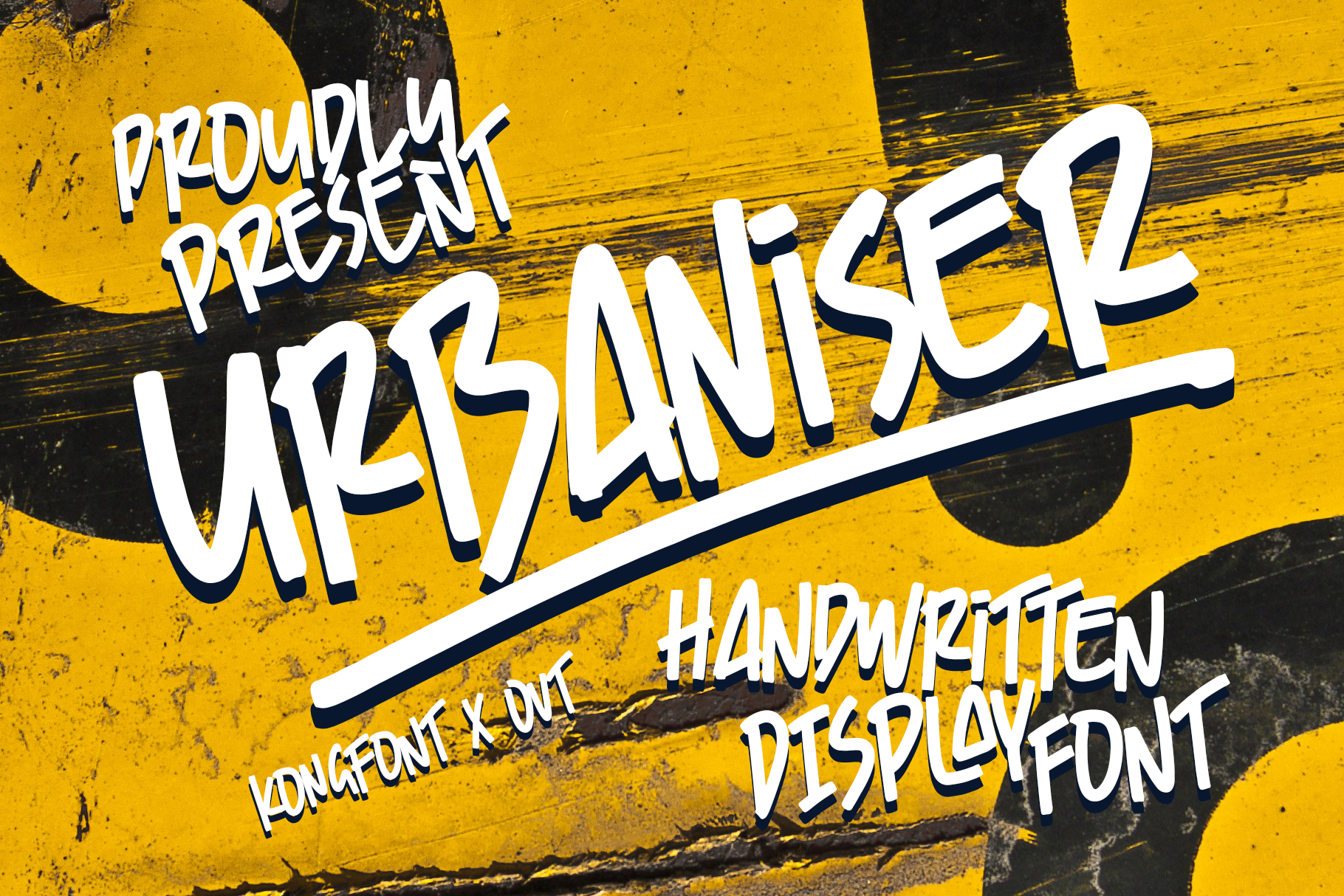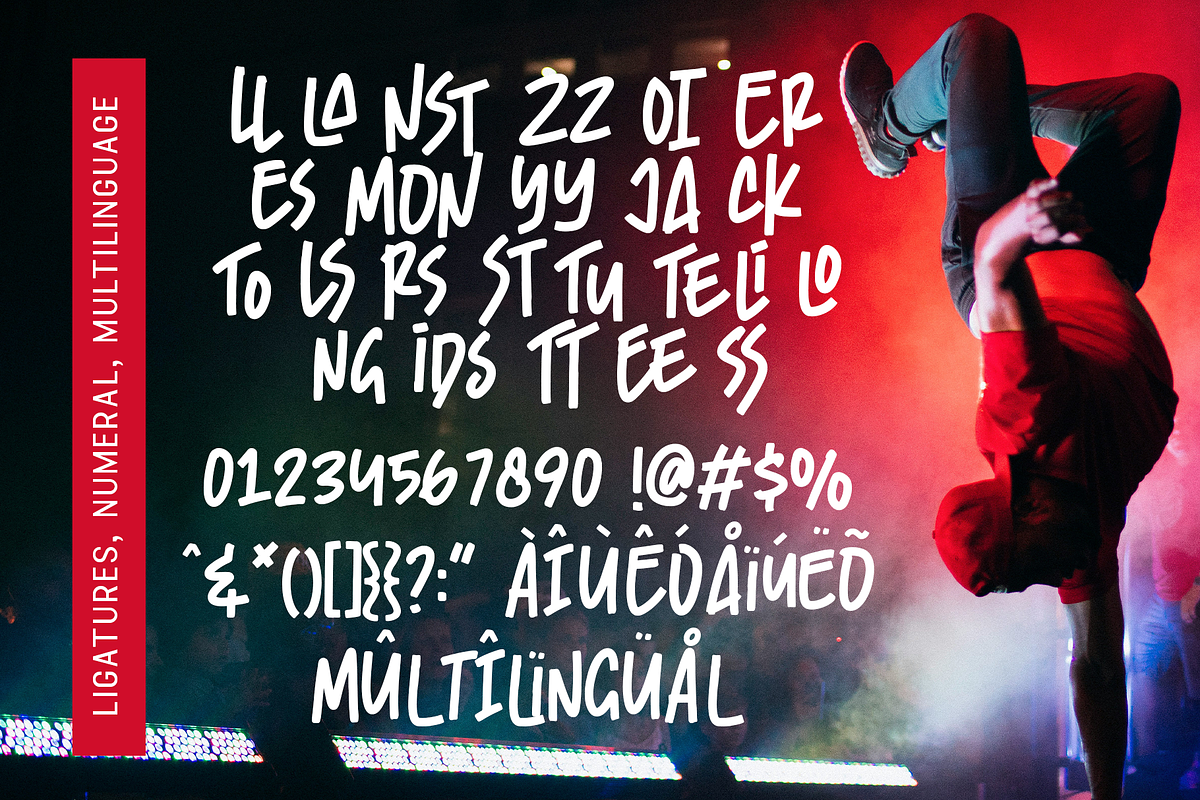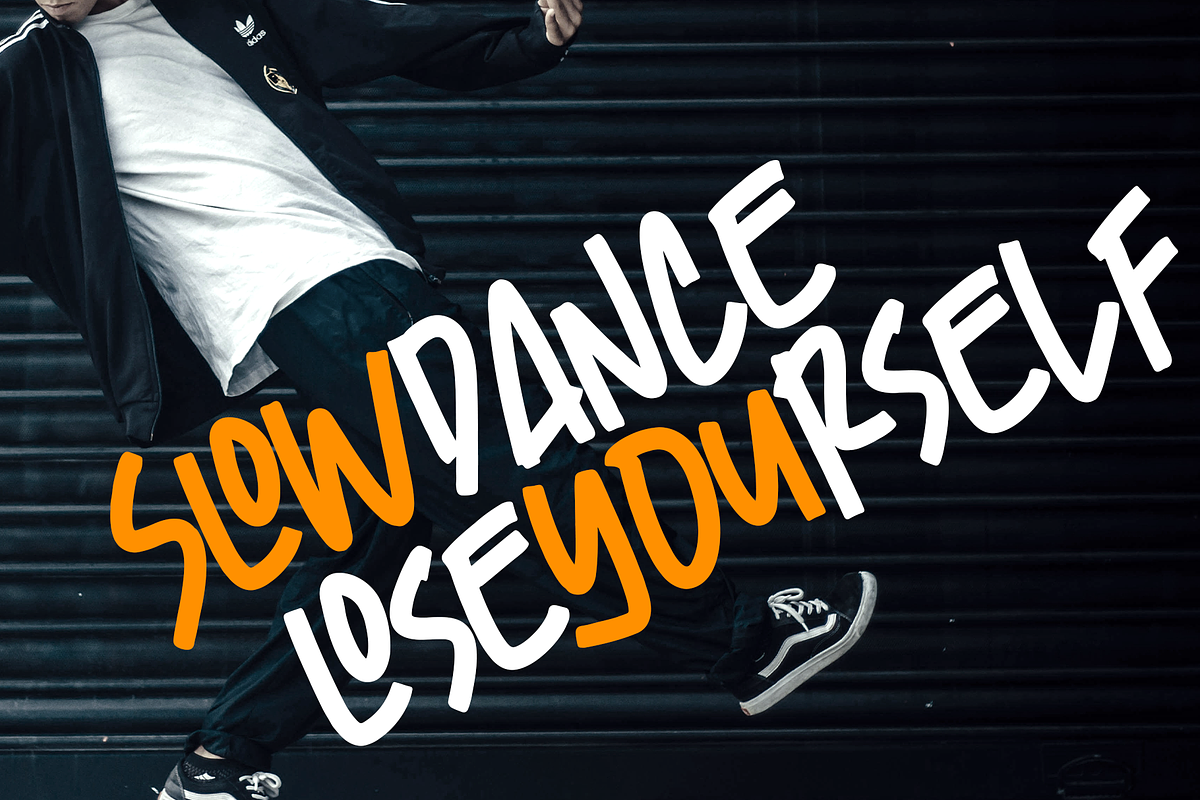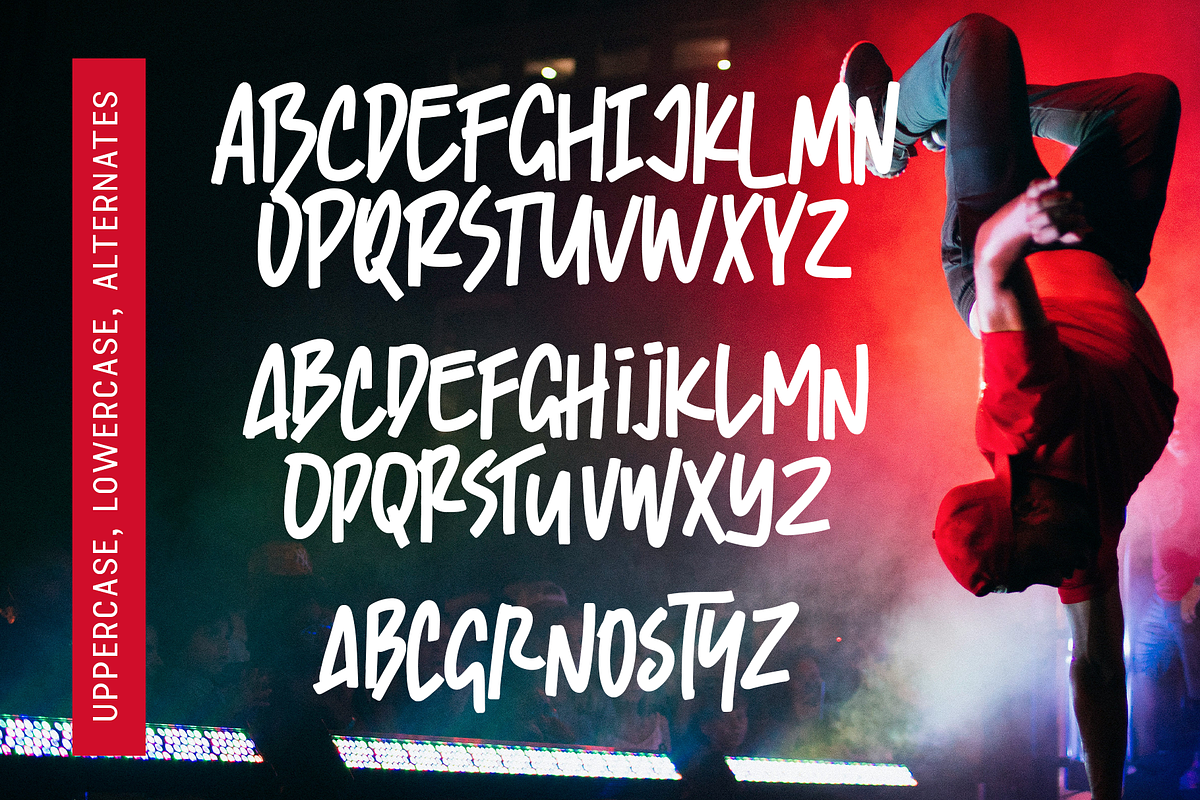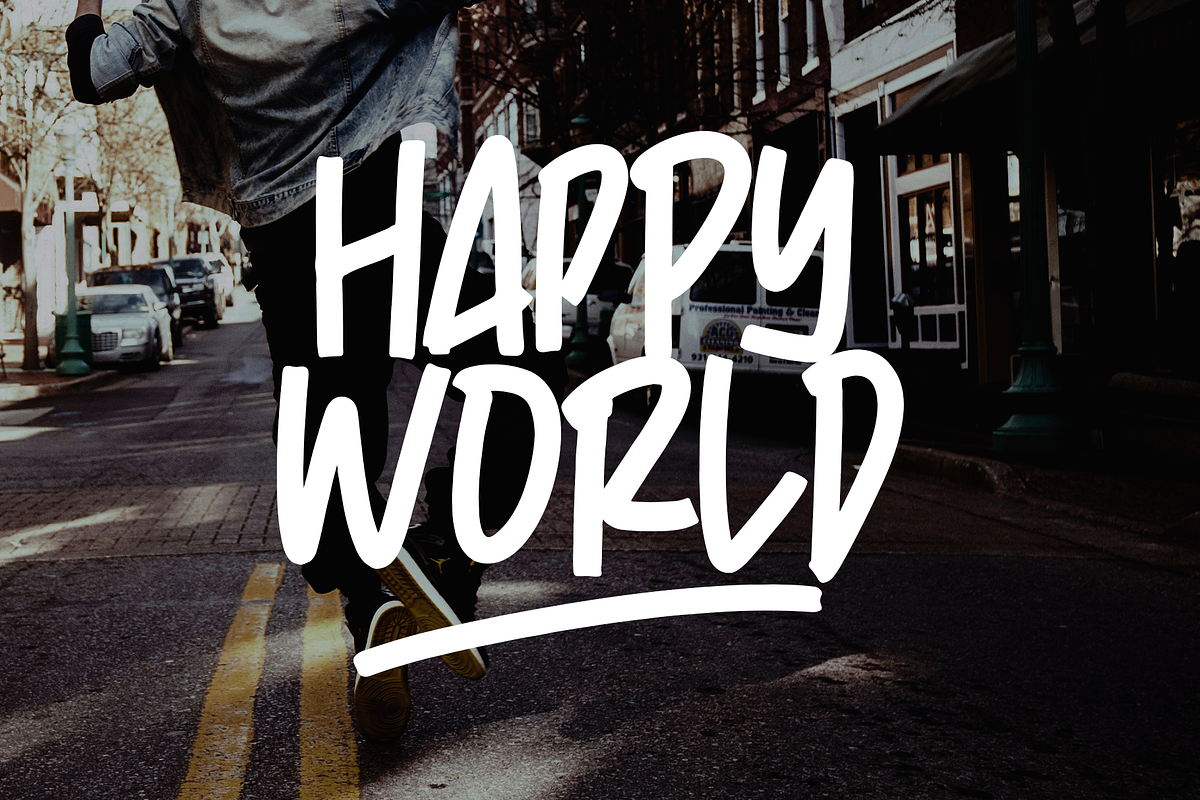
Urbaniser - Handwritten Display Font
Urbaniser - A Handwritten Display Font
Urbaniser is a bold and expressive handwritten display font that exudes urban charm and creative energy. With its raw, natural strokes and free-spirited style, this font is perfect for posters, logos, apparel, product packaging, social media graphics, and other creative projects seeking a fresh, modern look. Its hand-drawn feel brings an authentic touch, adding personality and dynamism to your designs.
Designed to stand out, Urbaniser combines the relaxed vibe of handwriting with the impact of a display font. Whether you're crafting edgy streetwear branding or vibrant promotional materials, this font captures attention effortlessly. It’s ideal for projects that require a mix of boldness and originality, giving your message a unique voice.
Let Urbaniser take your design game to the next level. Perfect for both print and digital use, this font will bring creative flair to any project that needs a blend of fun and sophistication.